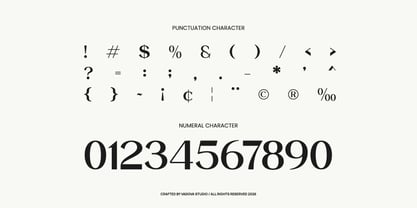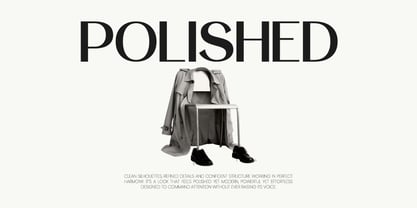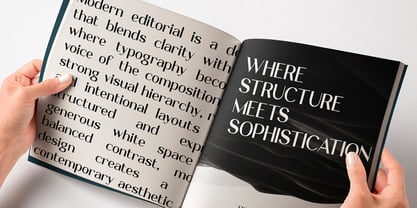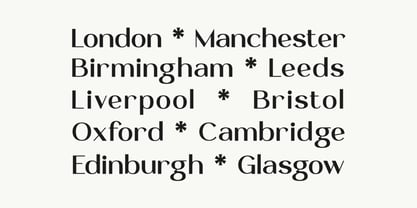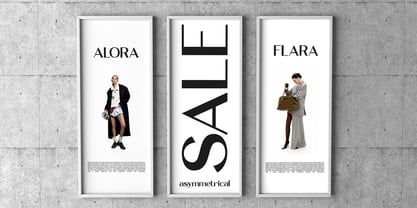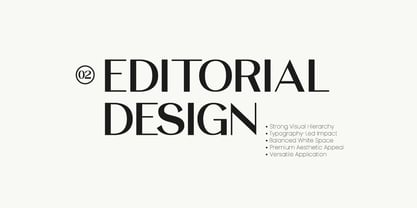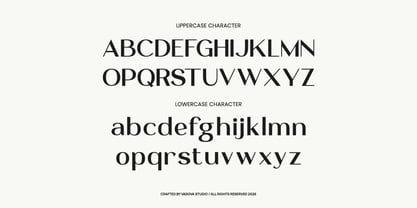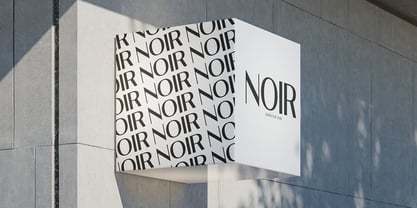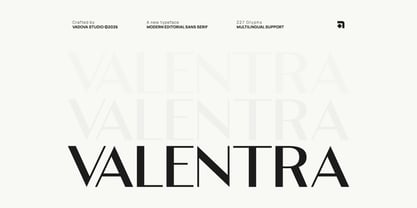
Valentra
by Vadova Std
The Valentra Font Family and published by Vadova Std. Valentra contains 1 styles. More about this family
Valentra is a modern editorial sans serif typeface crafted with refined proportions and clean geometric balance. The letterforms combine contemporary minimalism with subtle editorial character, creating a sophisticated typographic presence for modern layouts. Designed with clear structure and precise spacing, this typeface delivers excellent readability while maintaining strong visual hierarchy. Valentra is designed for editorial and branding environments where clarity, balance, and modern typography are essential. Its clean sans serif structure works effectively for magazines, brand identity systems, corporate communication, digital interfaces, marketing materials, and minimalist design compositions that rely on strong typographic hierarchy.